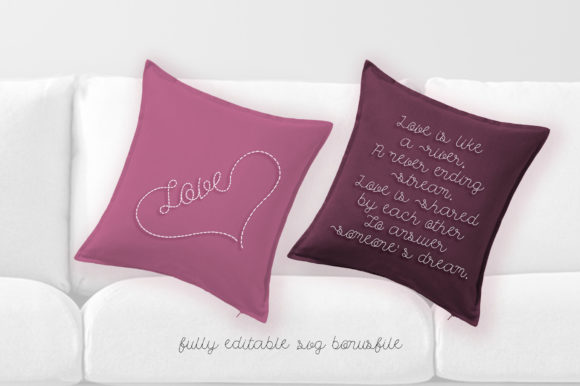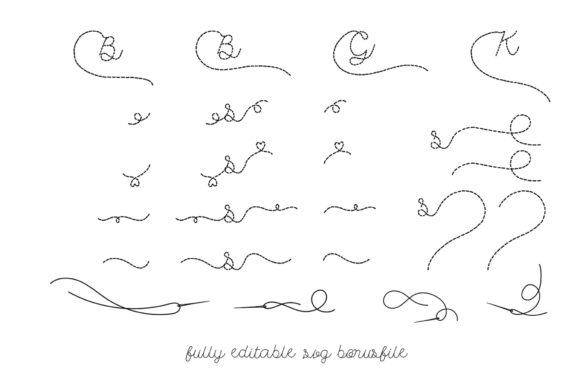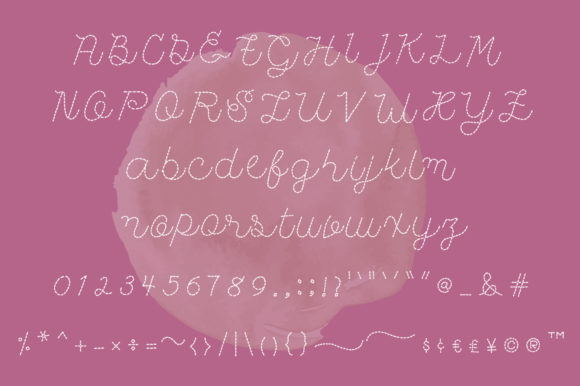
Handstitch Script Font
About Handstitch Script Font
Introducing “Handstitch Script,” a uniquely designed script font that captures attention with its ravishing style. With its distinctive handmade appearance, this font is perfect for creating stunning wedding invitations, beautiful stationery art, eye-catching social media posts, and so much more.
“Handstitch Script” stands out with its handcrafted feel, giving your designs a charming and personalized touch. The irregularities and variations in the letterforms emulate the look of hand-stitched artwork, adding a delightful and artisanal quality to your creations.
This font is a versatile choice for various projects, especially those that require an organic and creative aesthetic. Whether you’re designing wedding invitations, creating beautiful artwork for stationery, or crafting eye-catching social media posts, “Handstitch Script” adds a unique and captivating flair.
The distinct style of “Handstitch Script” is its defining feature. Each letter is meticulously crafted to resemble hand-stitched elements, resulting in a visually appealing and engaging font. Its charming imperfections and irregular strokes add character and authenticity to your designs.
Use “Handstitch Script” to create captivating wedding invitations that exude a warm and personal touch. The handmade appearance will make your invitations stand out and leave a lasting impression on recipients.
With “Handstitch Script,” you can also create beautiful stationery art, such as handwritten quotes, greeting cards, or personalized notes. The font’s organic and artistic look adds a touch of charm and authenticity to these pieces, making them even more special.
When it comes to social media posts, “Handstitch Script” can help you grab attention and stand out from the crowd. Use it to create eye-catching captions, headlines, or graphics that engage your audience and reflect your unique style.
The versatility of “Handstitch Script” allows you to explore endless creative possibilities. Its ravishing style enhances various design projects, including branding materials, packaging, logos, and more. Let your imagination run wild and experiment with different applications to see the stunning results.
Fall in love with the unique and ravishing style of “Handstitch Script” and let it inspire your creativity. Its handmade appearance adds an extra layer of artistry to your designs, setting them apart and making them truly special.
So, unleash your creativity with “Handstitch Script” and create gorgeous designs that leave a lasting impression. Let its ravishing style capture attention and bring your ideas to life with a touch of handmade charm.